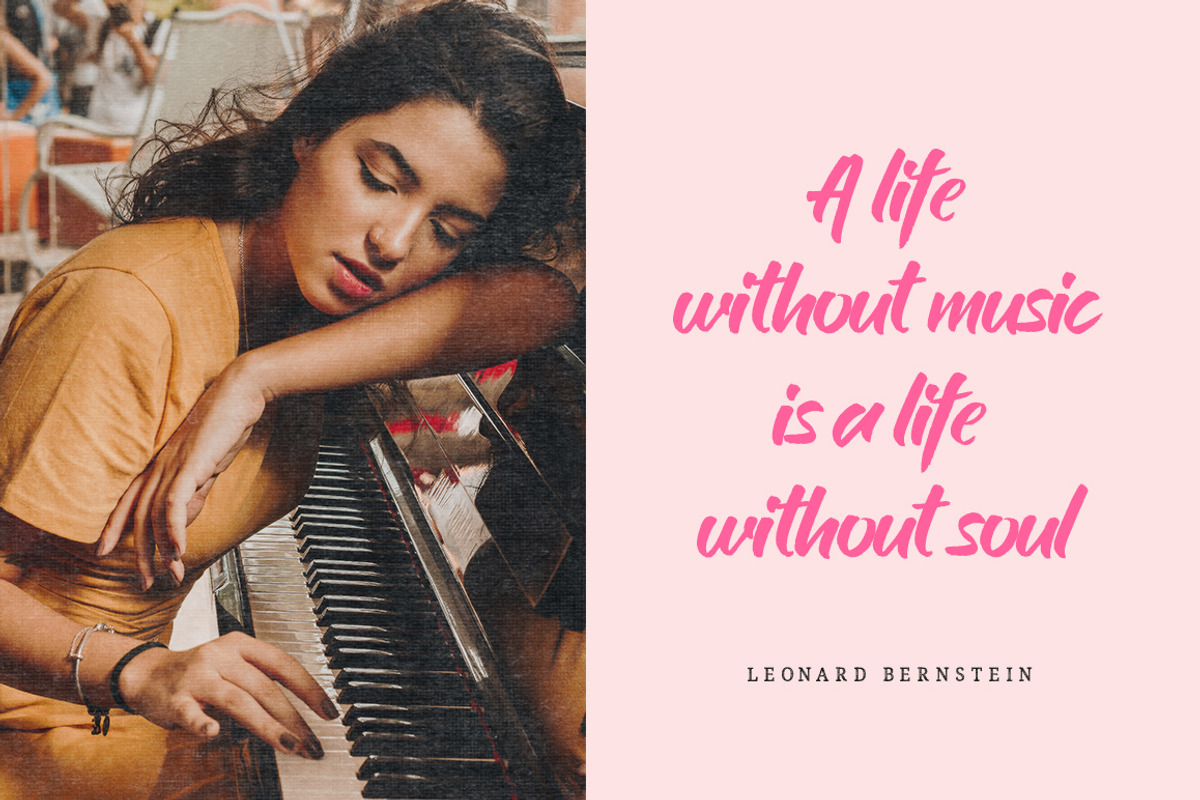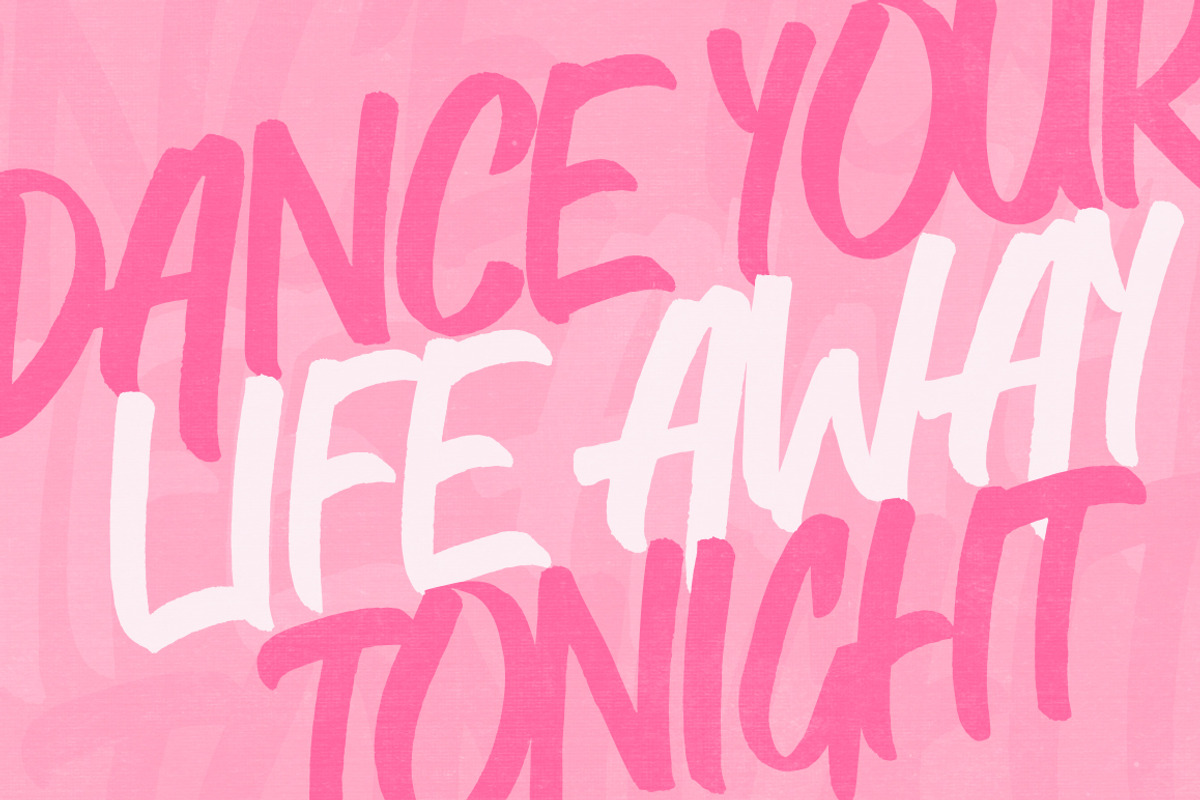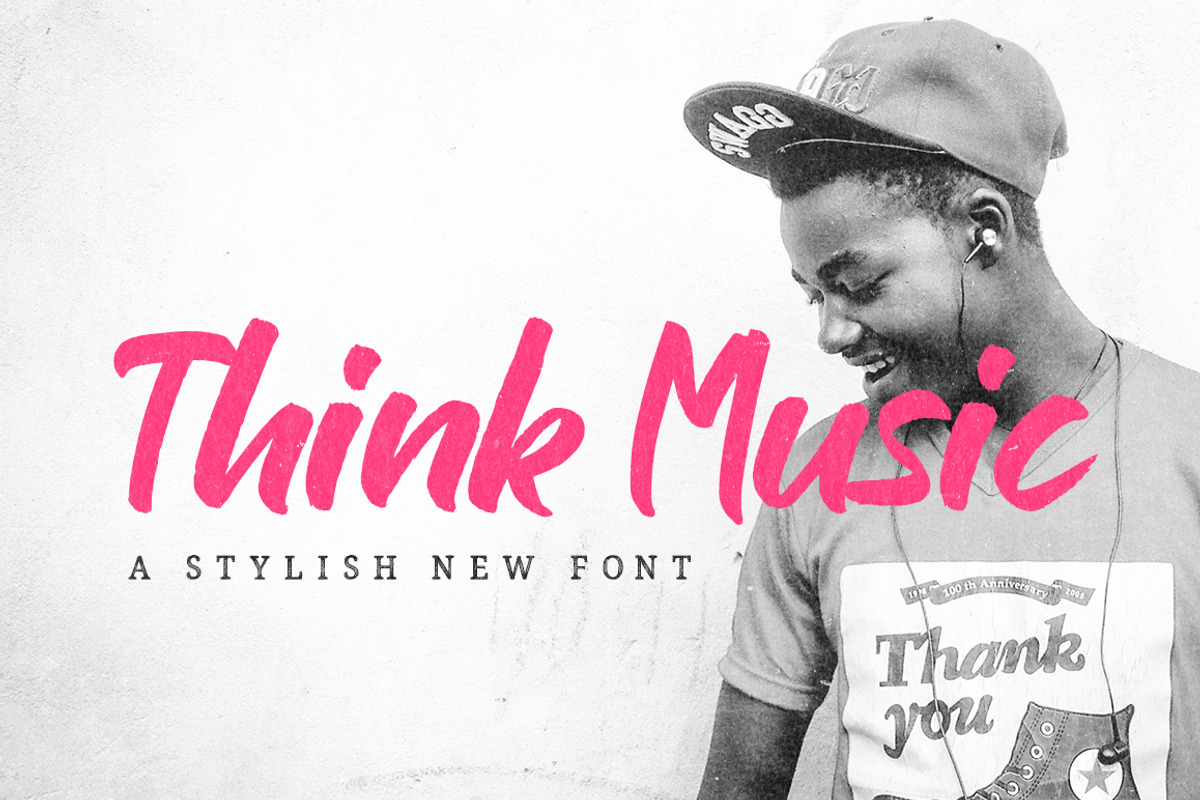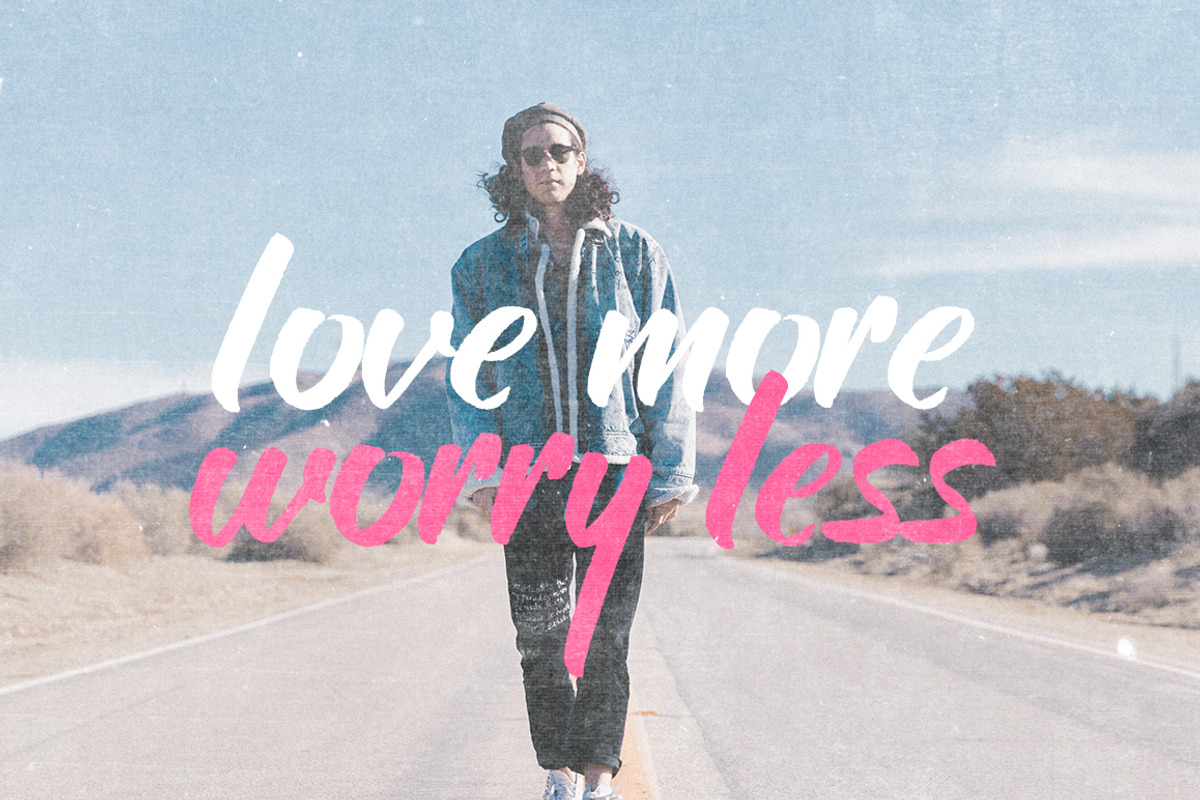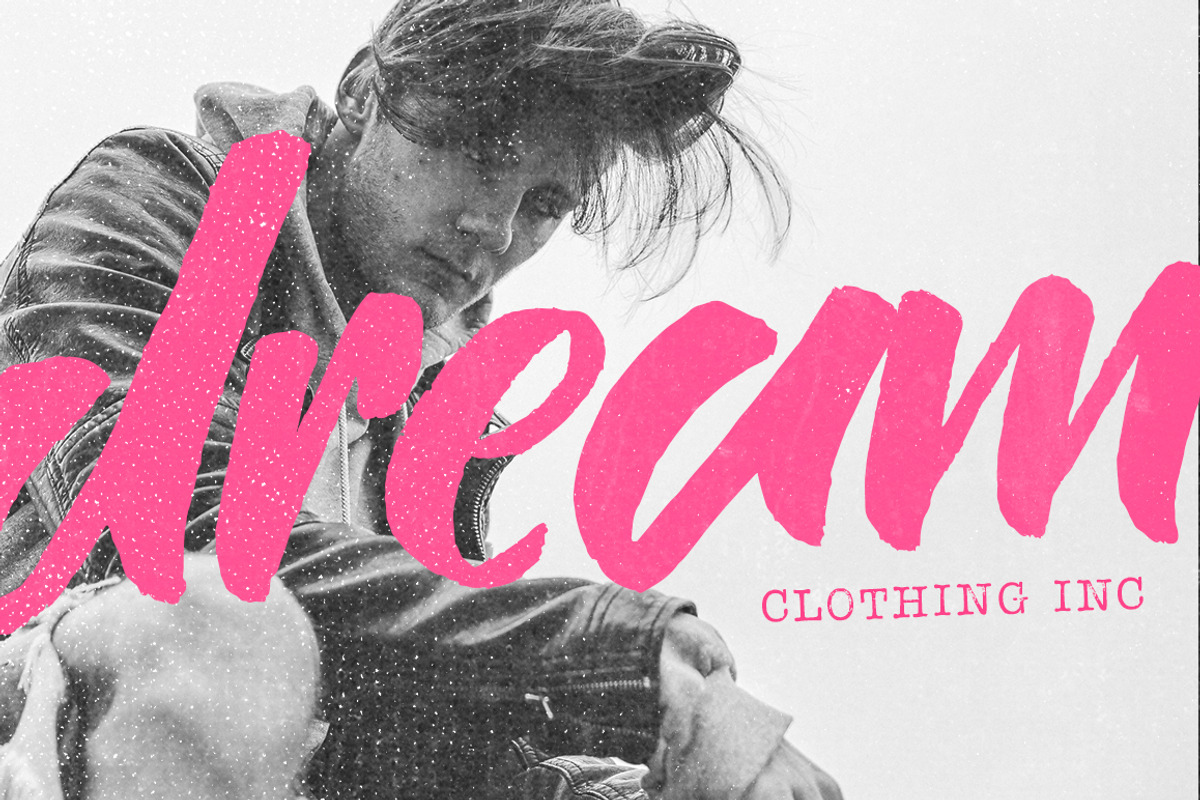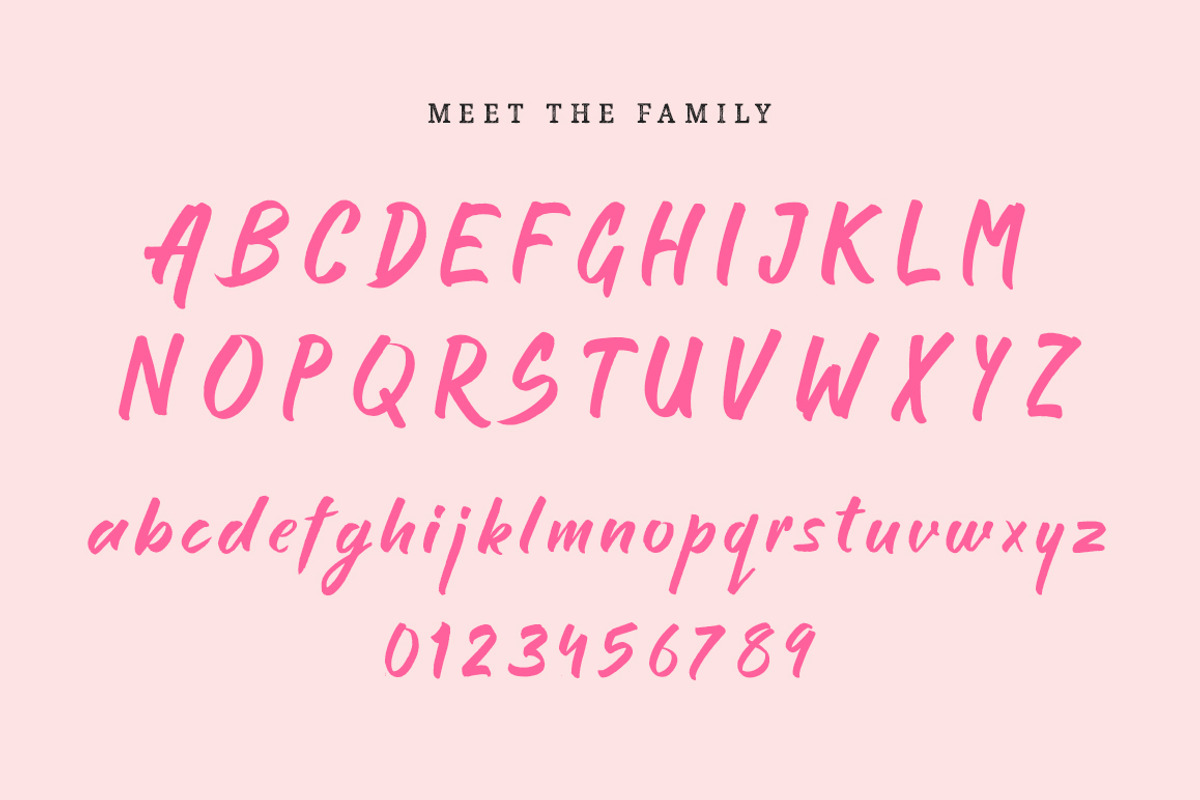
Think Music Script Font
Introducing the new Think Music font from Salt and Pepper Design! A thick brush font inspired by the chunkier scripts! Let this melody of a font transport your designs to a higher sound (yeah, we don’t get that either!) or just use this because you love it and it’s rad! Enjoy!
Why Think Music Script Font is worth a look
Think Music Script Font by Salt & Pepper Designs fits naturally into Branding, posters, packaging, typography.